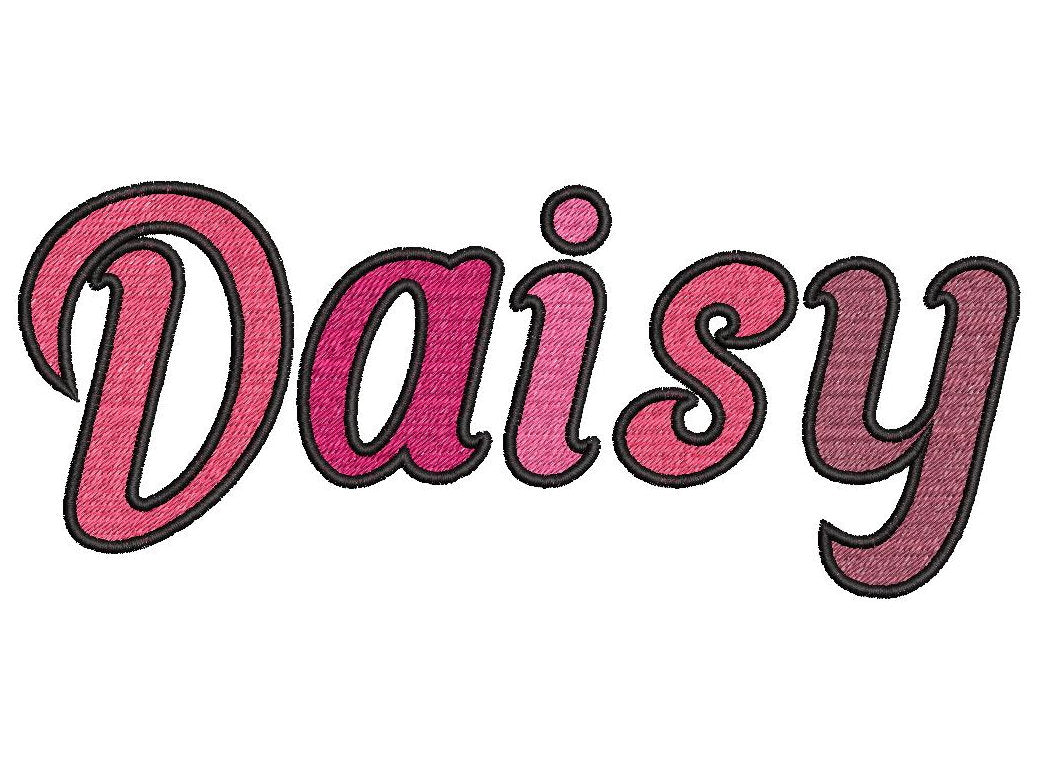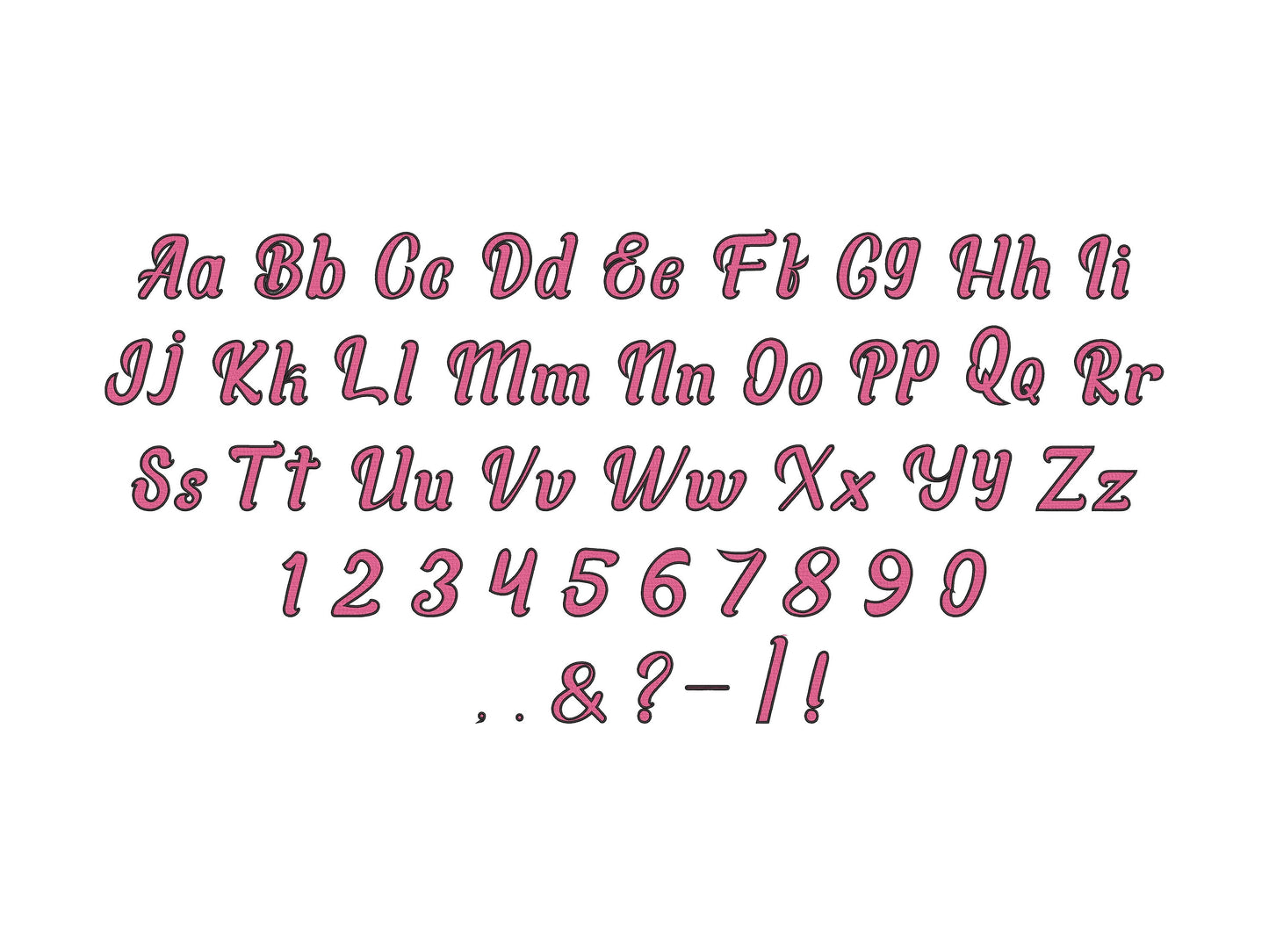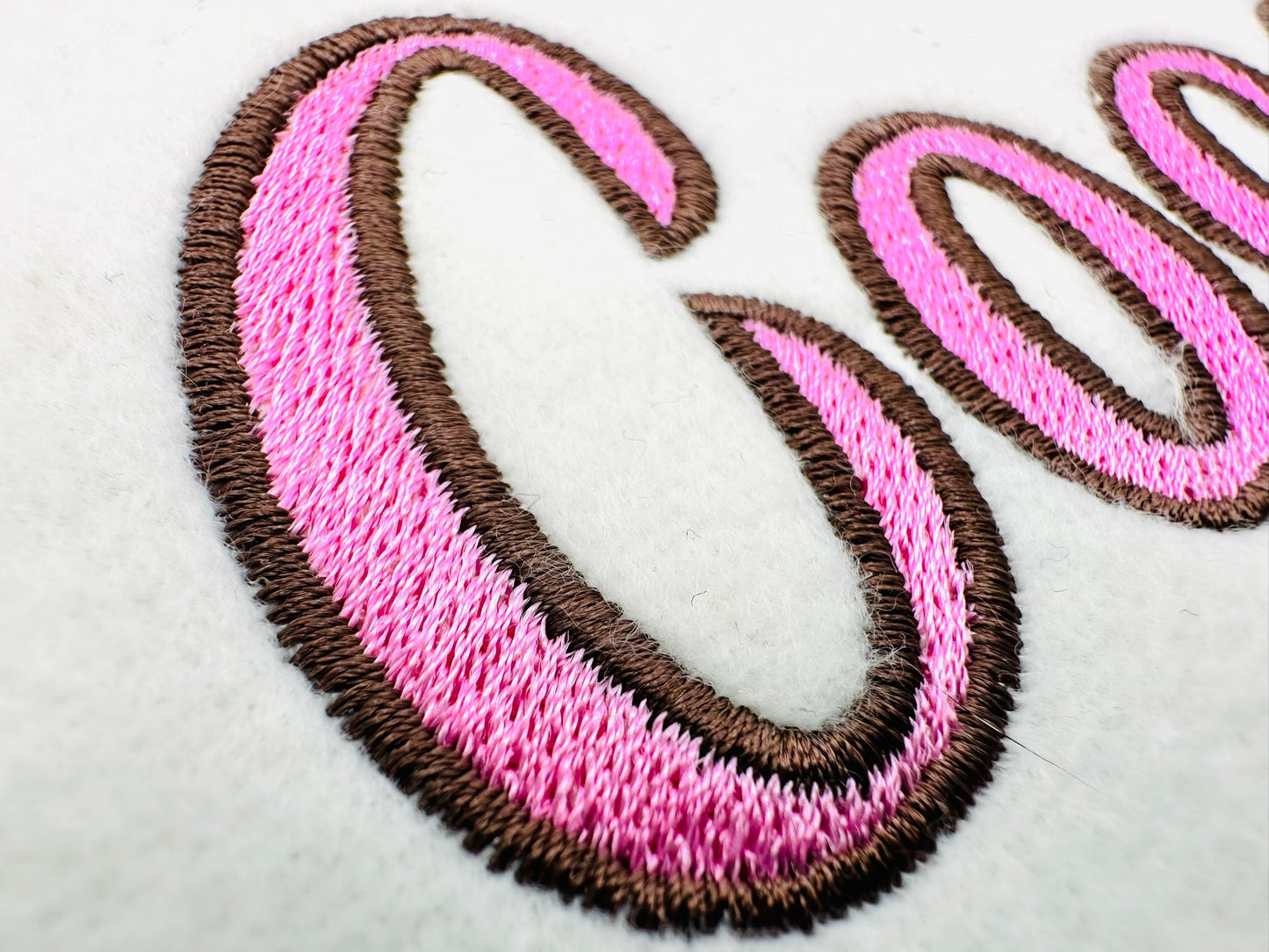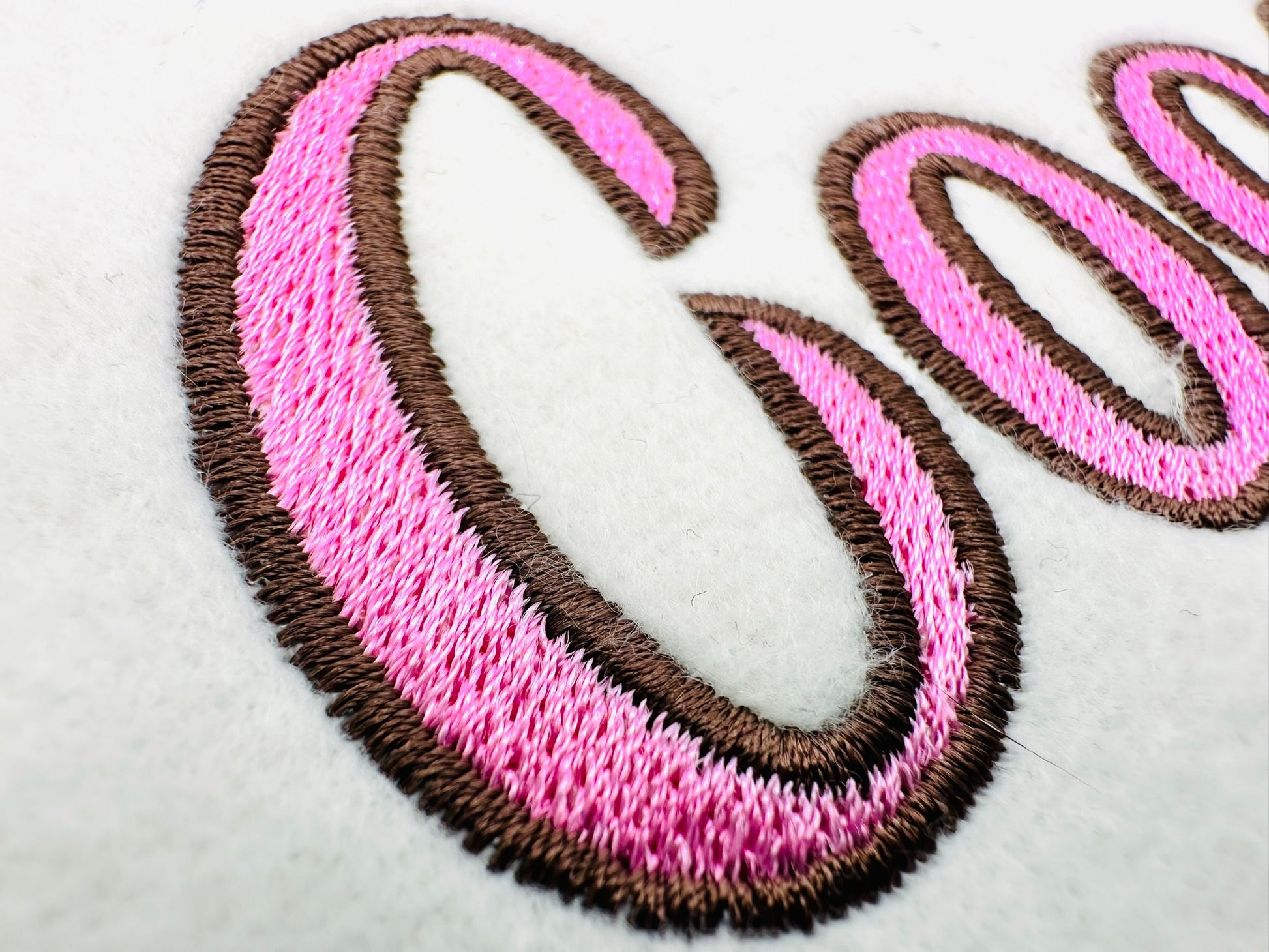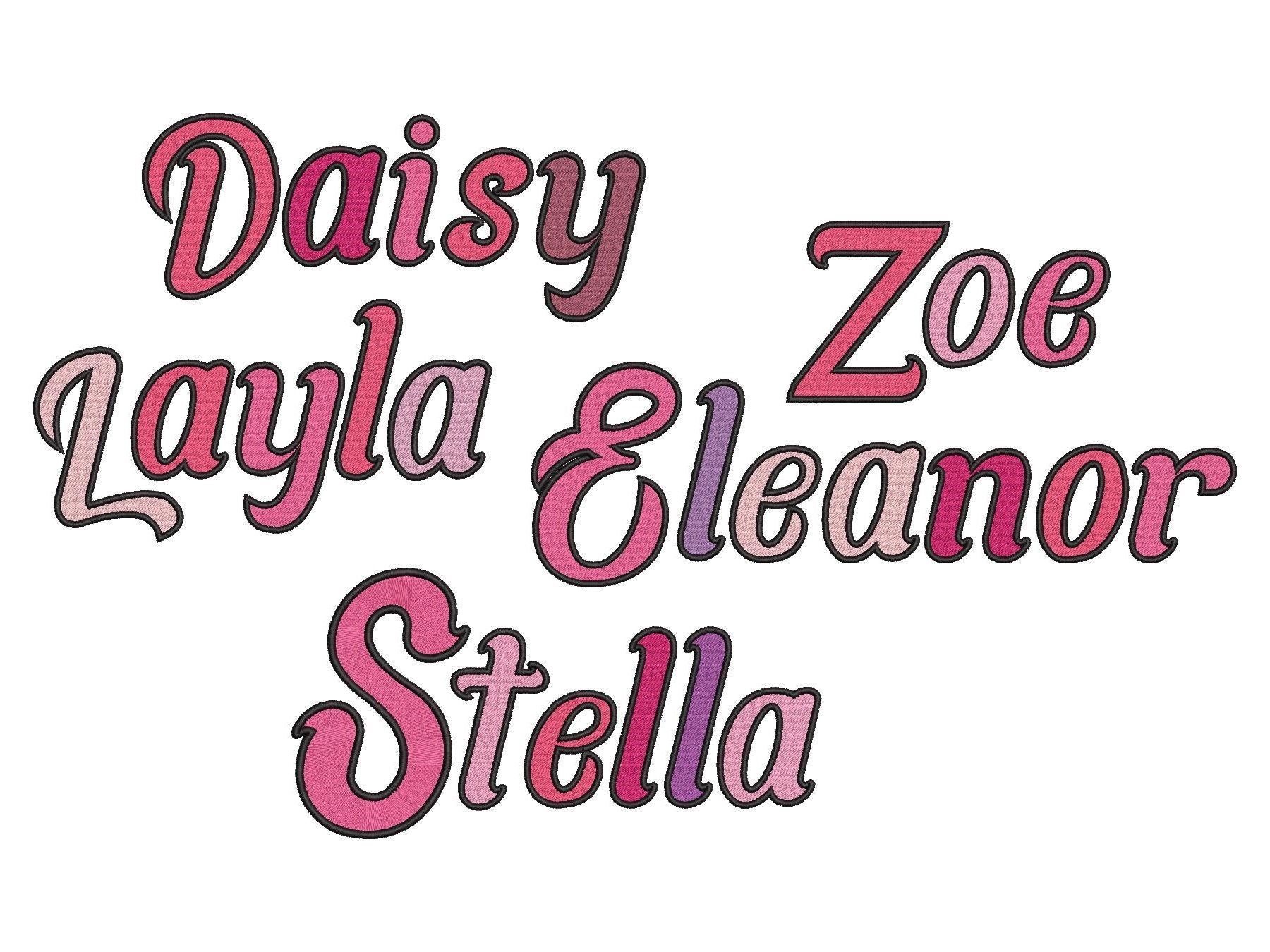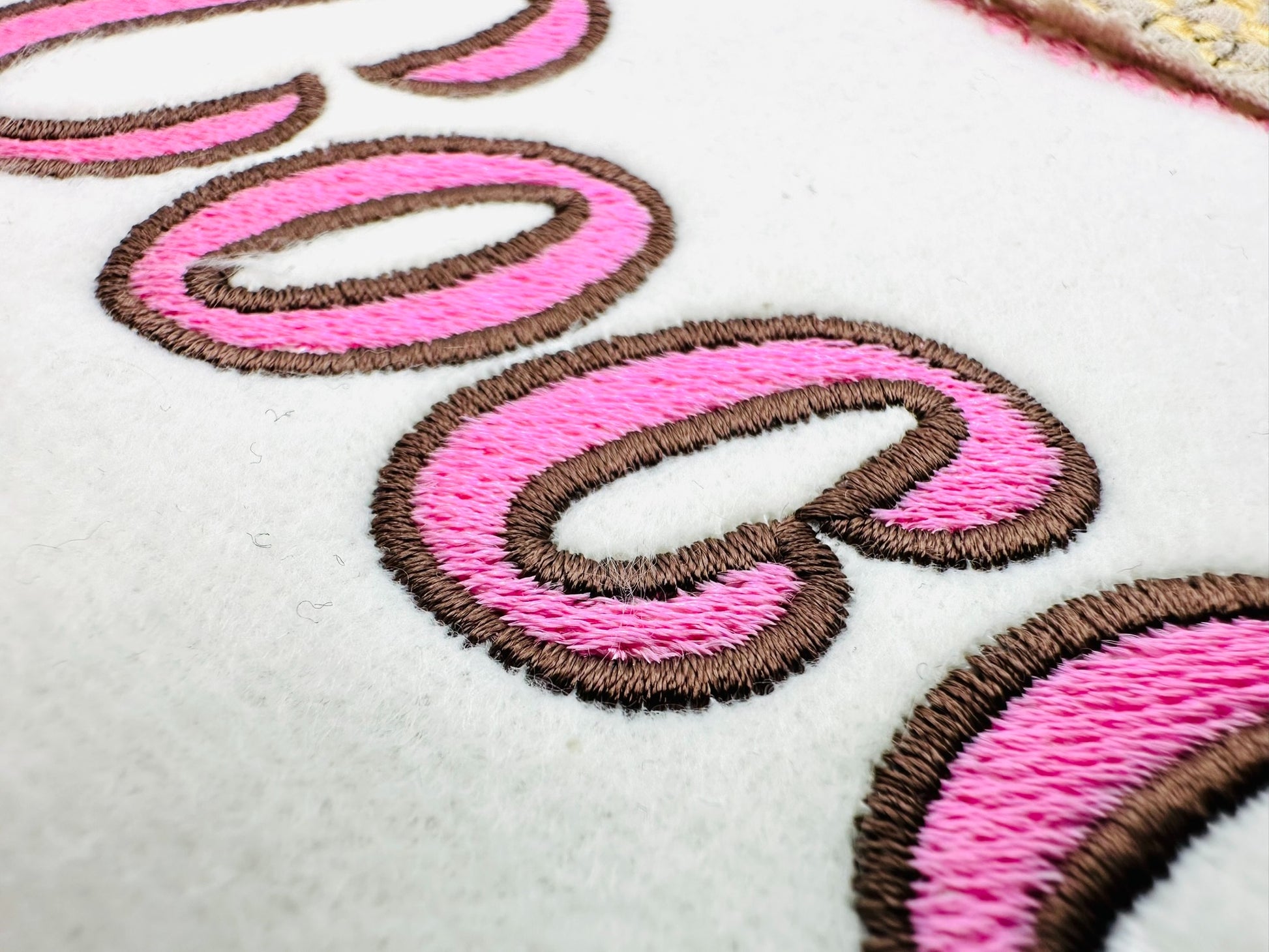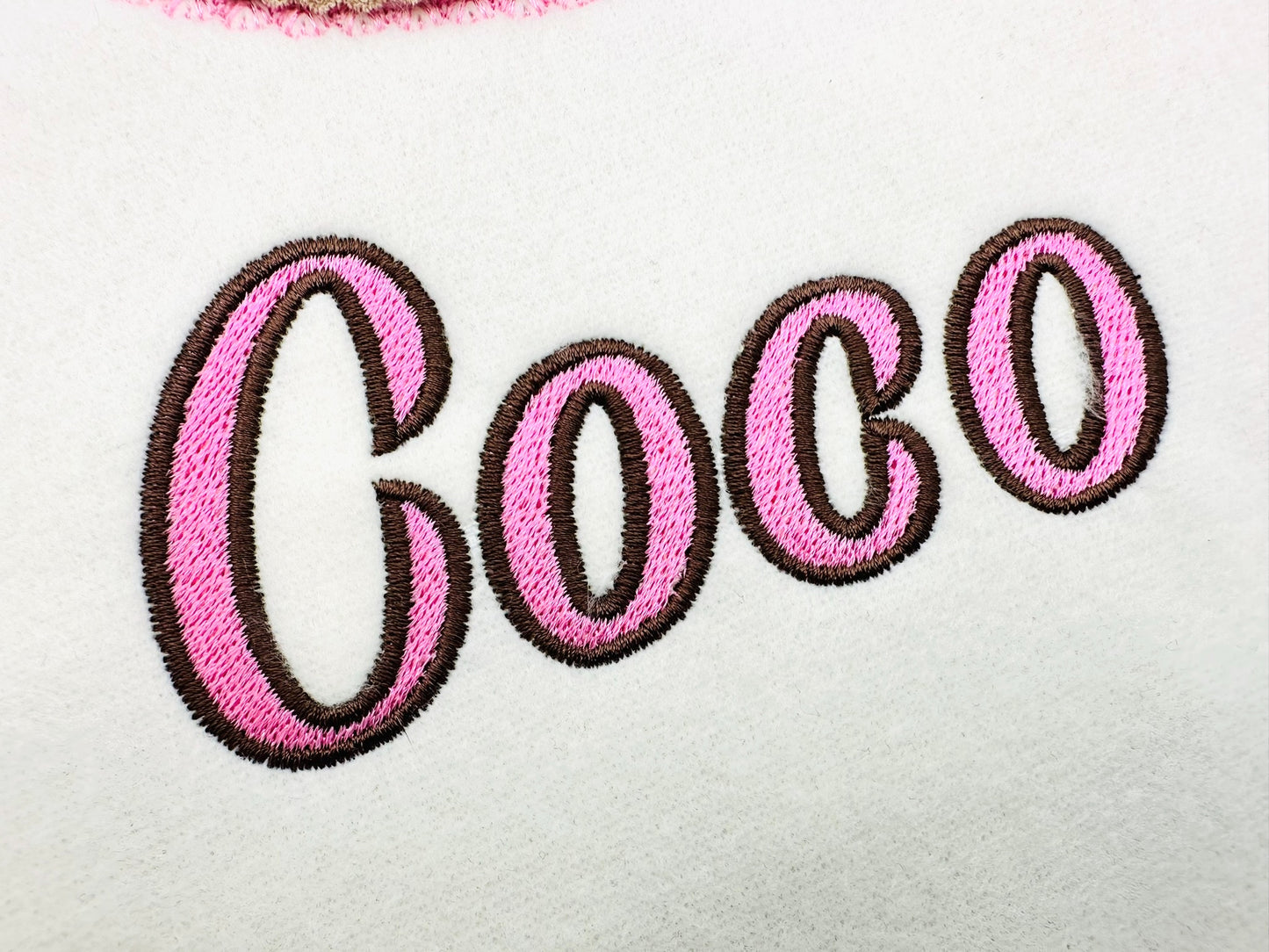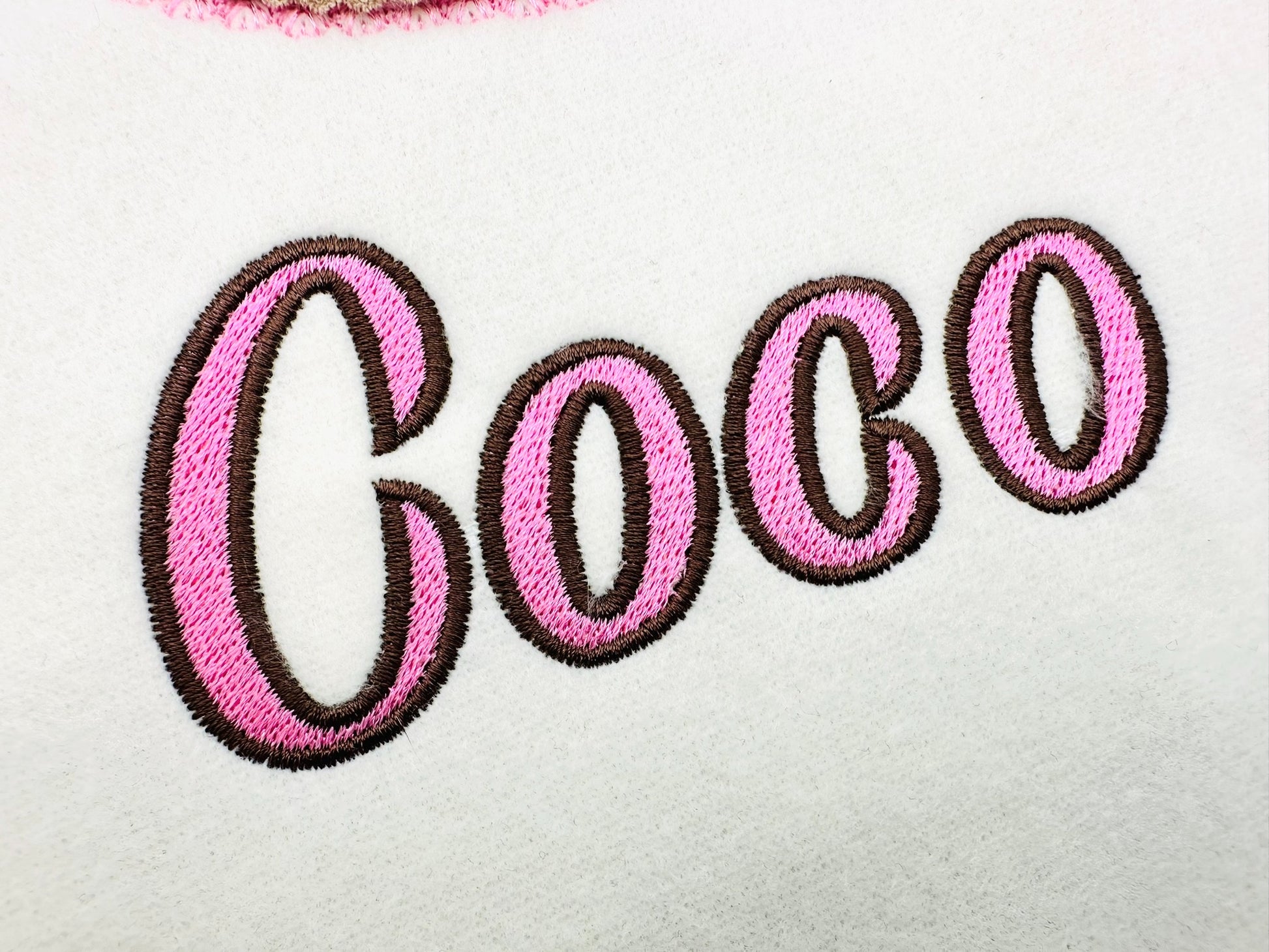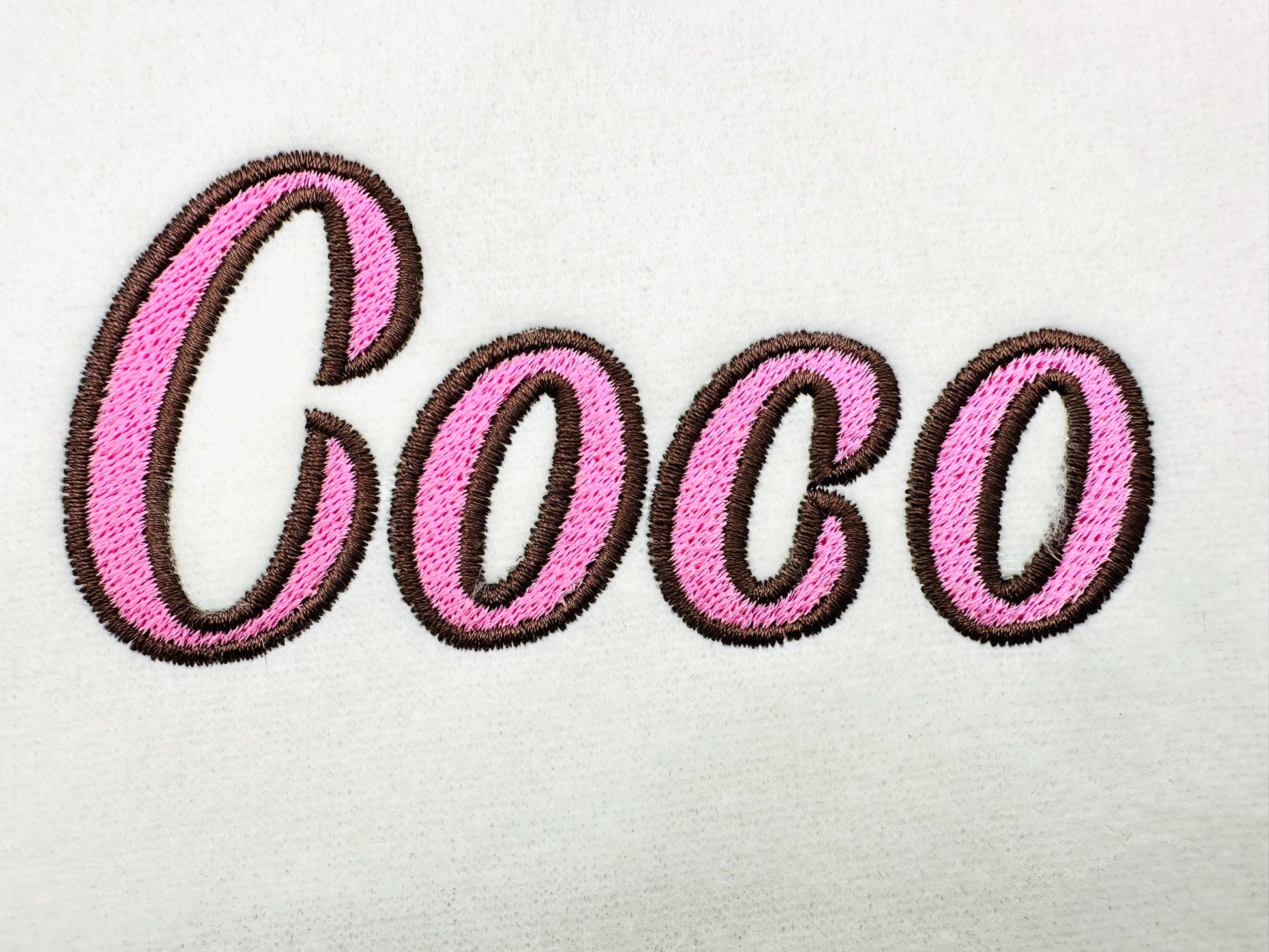
Or click to open the linkBold cursive fill stitch and solid outline Font alphabet monogram letters machine embroidery designs in assorted sizes, girl name font
Entire alphabet uppercase and lowercase letters Aa-Zz, numbers 0-9, and punctuation.